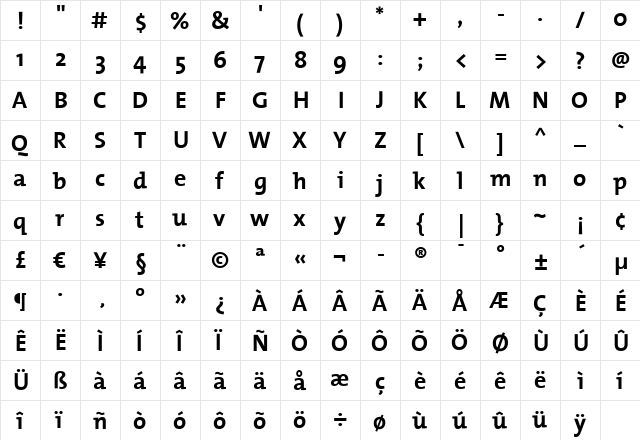
TheMix Bold Font Preview
TheMix Bold
TheMix Bold Font Details
Design Context for TheMix Typeface
TheMix is a composed and adaptable typeface that performs quietly and consistently across a wide range of design contexts. The heavy weight commands attention and anchors typographic hierarchies.